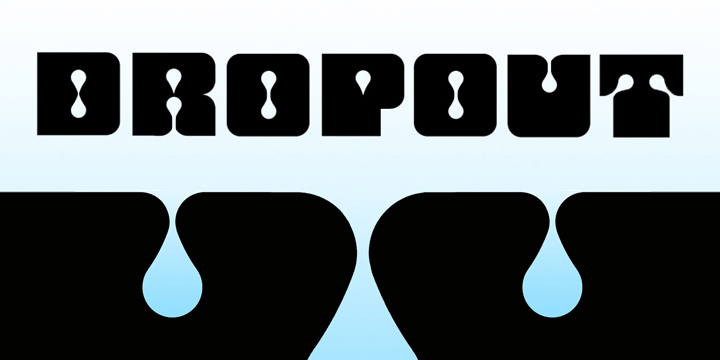
FLASHBACK
Flashback is a display font family. This typeface has three styles and was published by ArtyType.
All three fonts evolved from experimenting with a cubic template I devised as the basis for a retro display type series titled
I experimented with numerous shapes initially to see which forms lent themselves best to the negative spaces forming the characters.
Although many interesting variants are possible within this context, these three were resolved the best out of all the options tried.
All three fonts evolved from experimenting with a cubic template I devised as the basis for a retro display type series titled ‘Flashback’.
I experimented with numerous shapes initially to see which forms lent themselves best to the negative spaces forming the characters. Although many interesting variants are possible within this context, these three were resolved the best out of all the options tried.